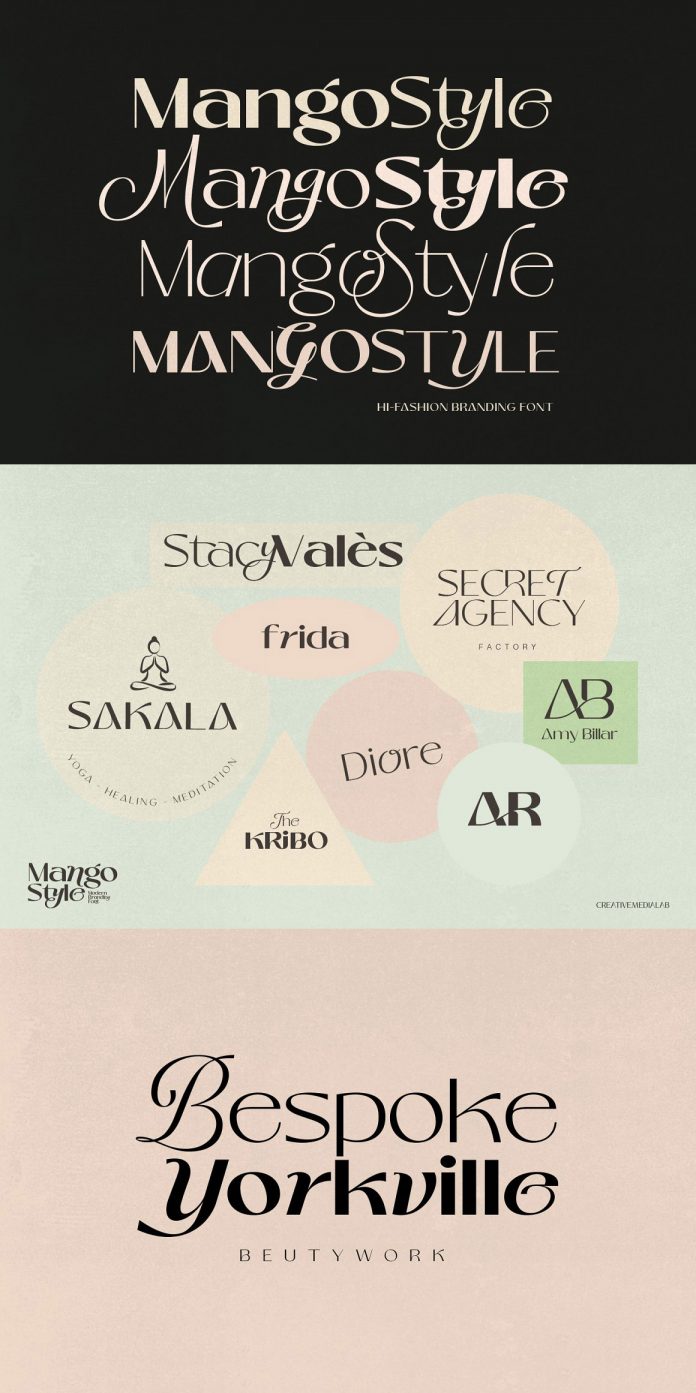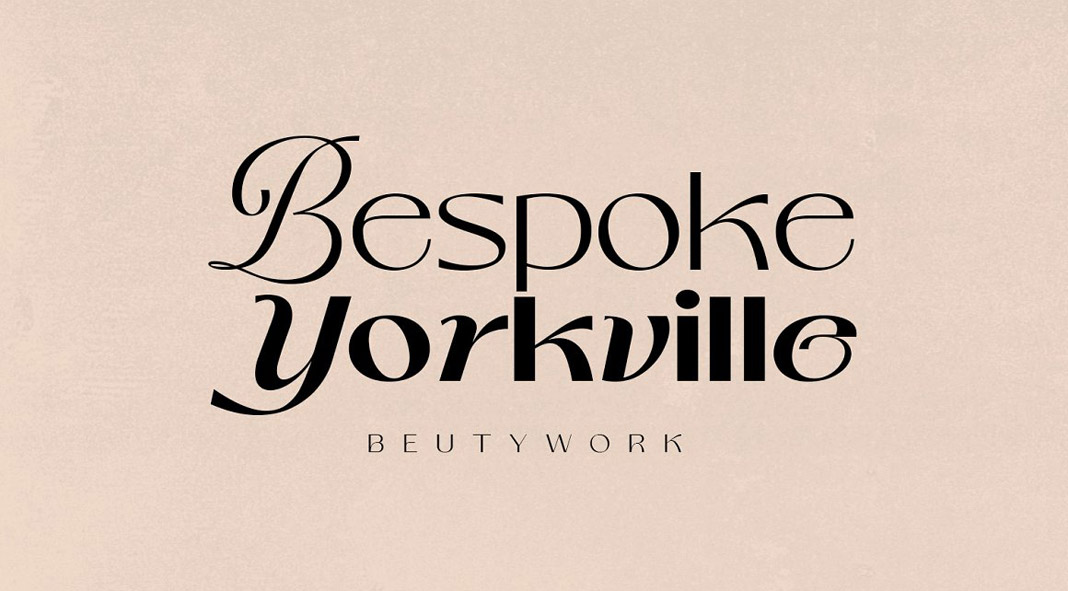
Mango Style, a modern branding font with stylish script alternates.
Mango Style is an extraordinary display font well-suited for logos, apparel, branding, and luxurious projects. Its nine different weights range from Thin to Black. Also equipped with an additional variable format and stylish script alternates, you have all the creative freedom you need for your typographic work. The Mango Style typeface supports multiple languages (Western Europe, Central/Eastern Europe, Baltic, Turkish, Romania). Just click on the following link to get further information about all features and download options.